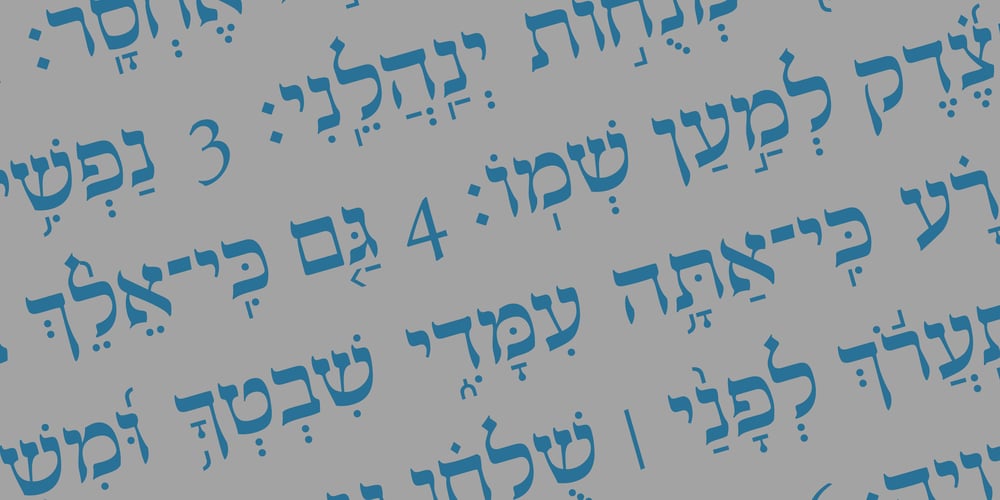
Hebrew Saphire Tanach
Hebrew Saphire Tanach font
Hebrew Saphire Tanach Font Family was designed by Sami Artur Mandelbaum and published by Samtype. Hebrew Saphire Tanach contains 2 styles and family package options. Beautiful font, good for posters, books, and folders, Siddurim, Tehilim, and Tanakh.This is a complete font with all diacritic marks (Nikud and Taamim) and also Shevana, Kamatz Katan, Dagesh Chazak, and Holam chaser.